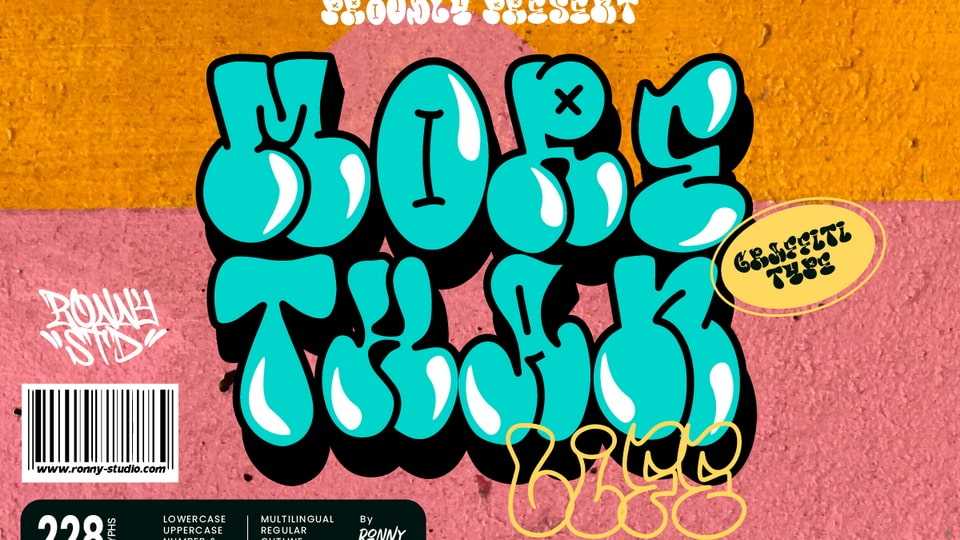
Download More Than Life font, a bubble graffiti tag typeface inspired a typography style commonly used in street art and graffiti culture. More Than Life features rounded and inflated letters that create a three-dimensional, bubble-like effect.